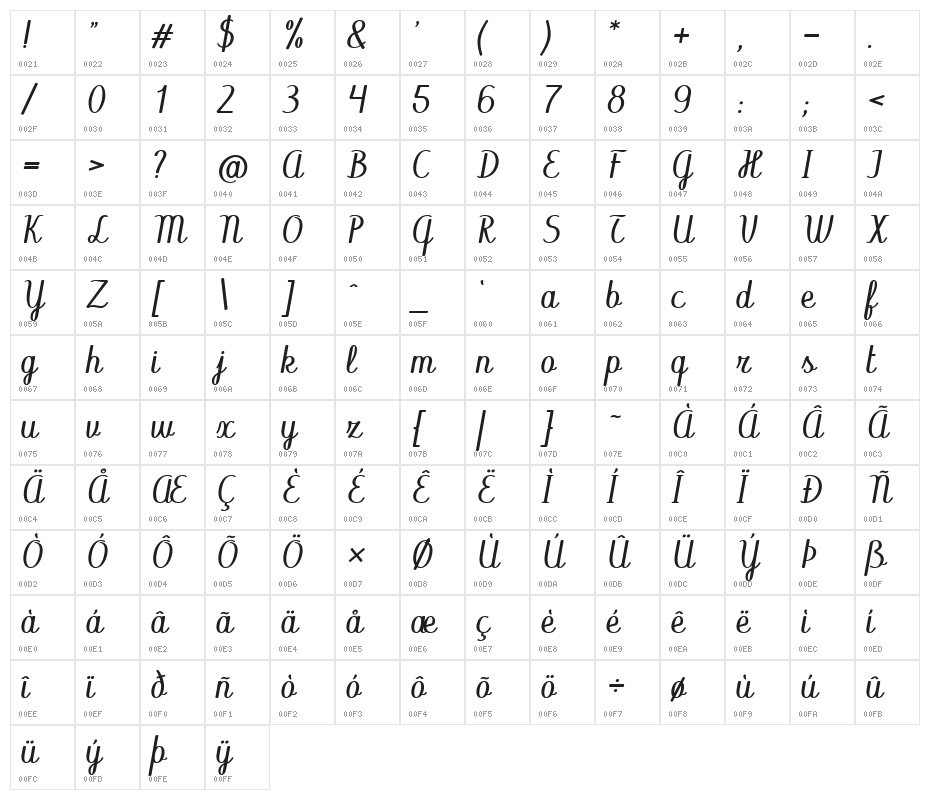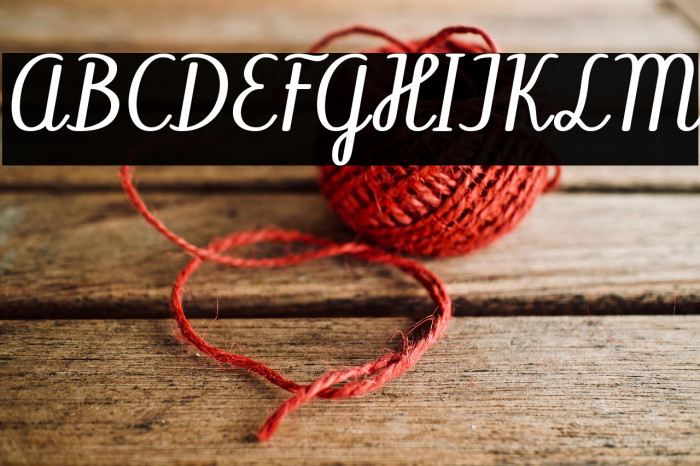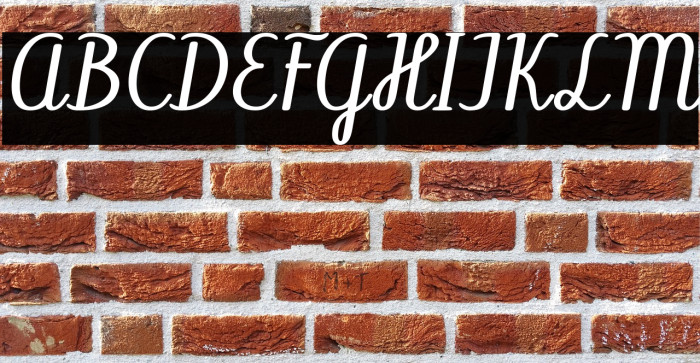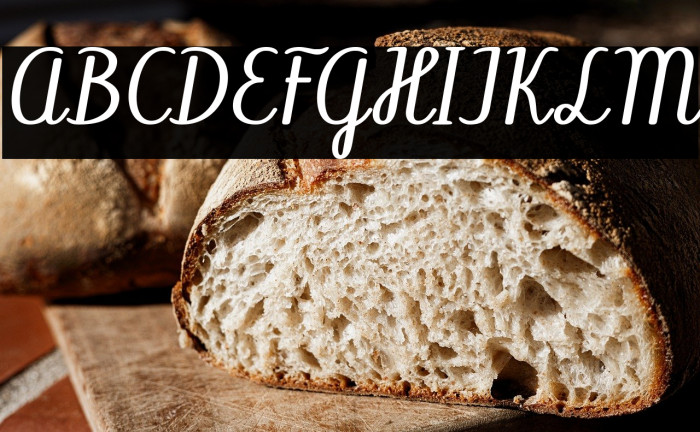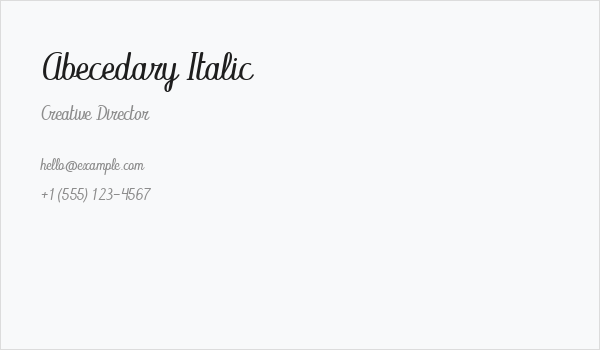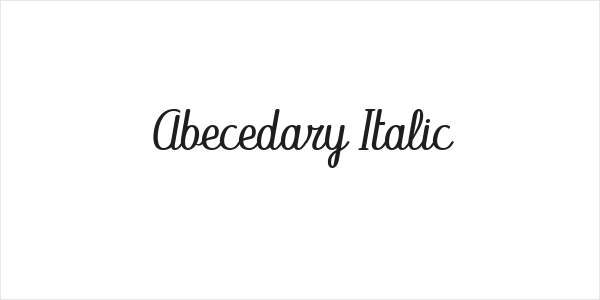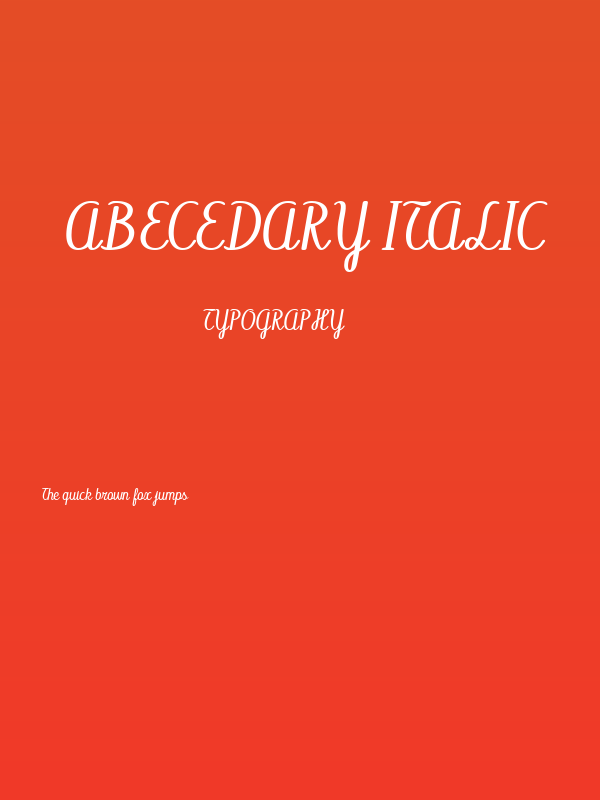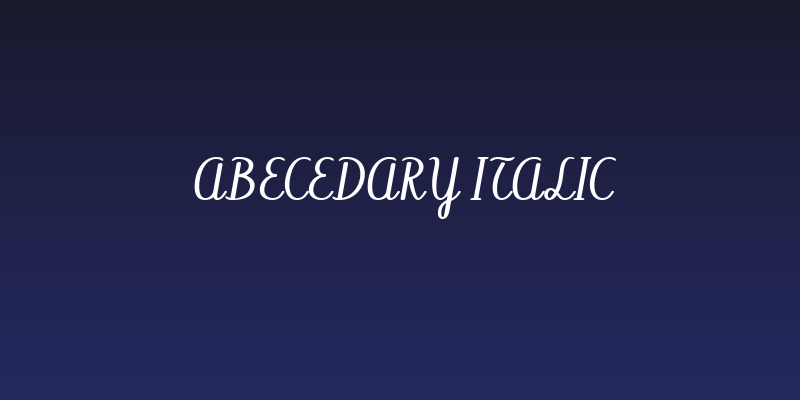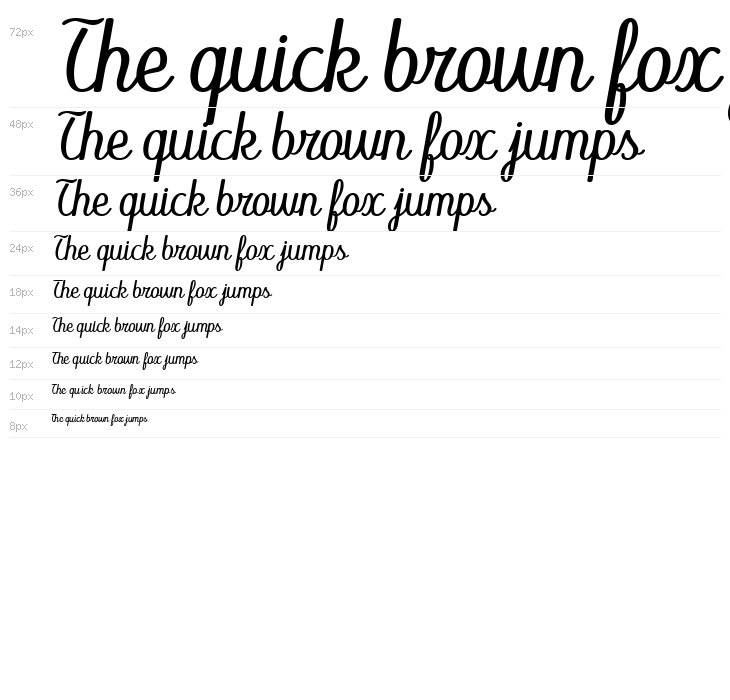
Abecedary Italic Font
Abecedary Italic Description
This font features a flowing, cursive style with elegant, sweeping curves that give it a sophisticated and graceful appearance. The letters are connected in a fluid manner, enhancing the script-like quality. It maintains a consistent stroke width throughout, providing a harmonious and balanced look. The uppercase letters are slightly more ornate, with subtle flourishes that add a touch of flair. The lowercase letters are more understated, yet they maintain the same fluidity and elegance. The numerals and special characters are designed to match the overall aesthetic, ensuring a cohesive appearance across all elements.
| Use Case | Headlines, Invitations, Branding |
| Proposed Projects | Ideal for wedding invitations, elegant branding, personal stationery, and decorative headlines. |